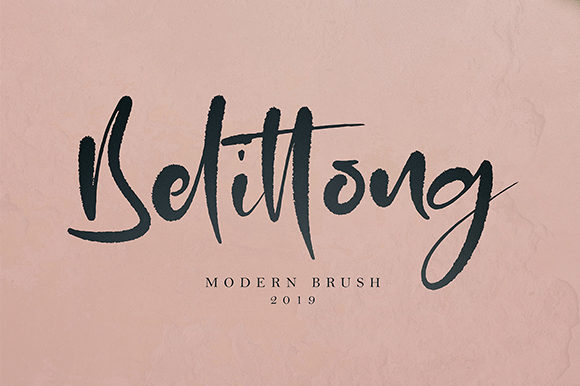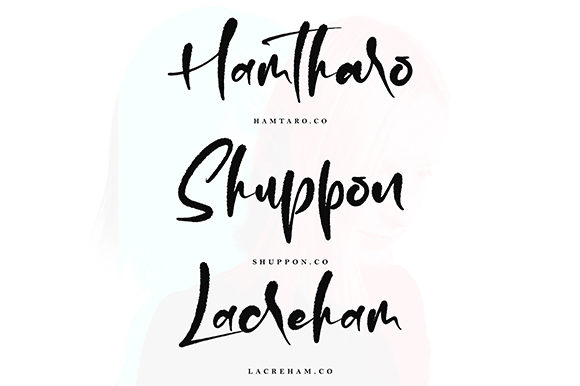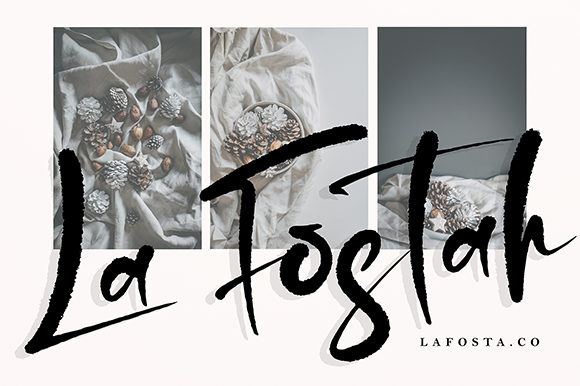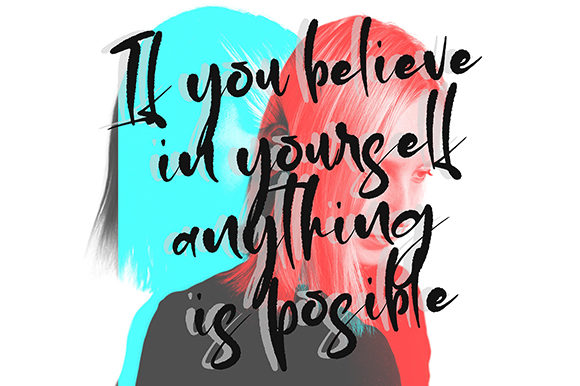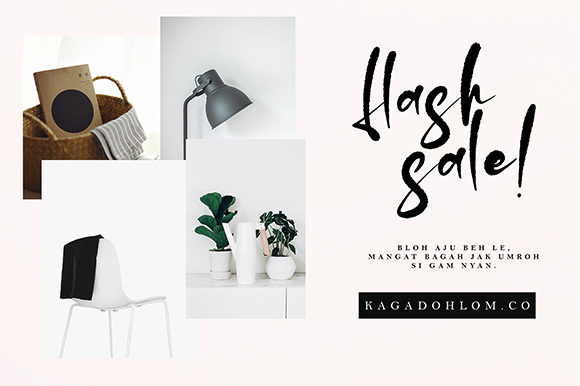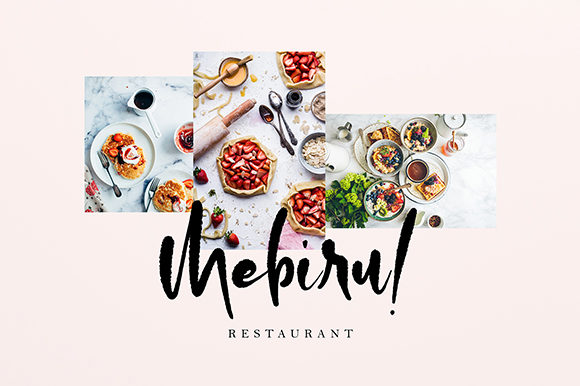
Belittong Font
About Belittong Font
Belittong is a fun and amazing handwritten font with beautiful swashes. It will add an authentic spark to any design idea.